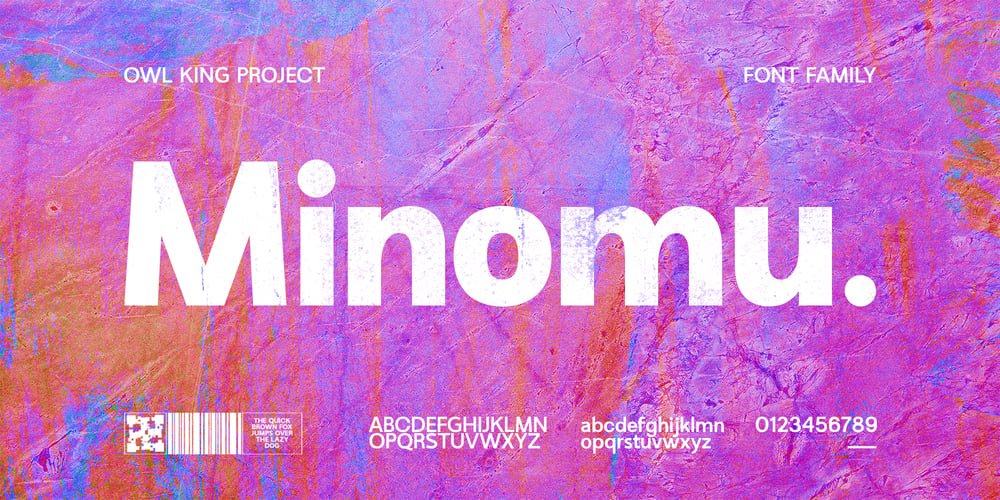
Minomu Font Family was designed by Darhilen and published by Owl king project. Minomu contains 20 styles and family package options. Minomu consists of twenty sans serif font families,With a thicker weight, Minomu can be applied as an attractive and bold appearance for title letters,not only that, but Minomu’s family with lowercase letters can also be used in designs with use as body text, to create more detailed descriptions.